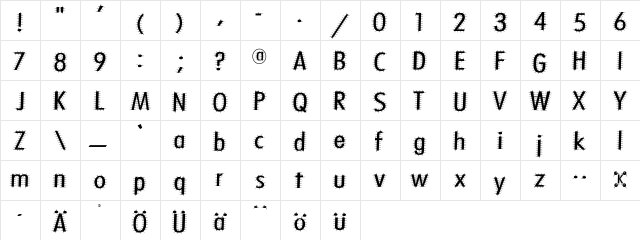
CactusBlossom Regular
Design Context for CactusBlossom Typeface
CactusBlossom offers clean, dependable letterforms without strong stylistic allegiance, making it a practical choice for designers who need flexibility.
Pro Tip: Use CactusBlossom in both headline and body roles to test its range before committing to a single application.